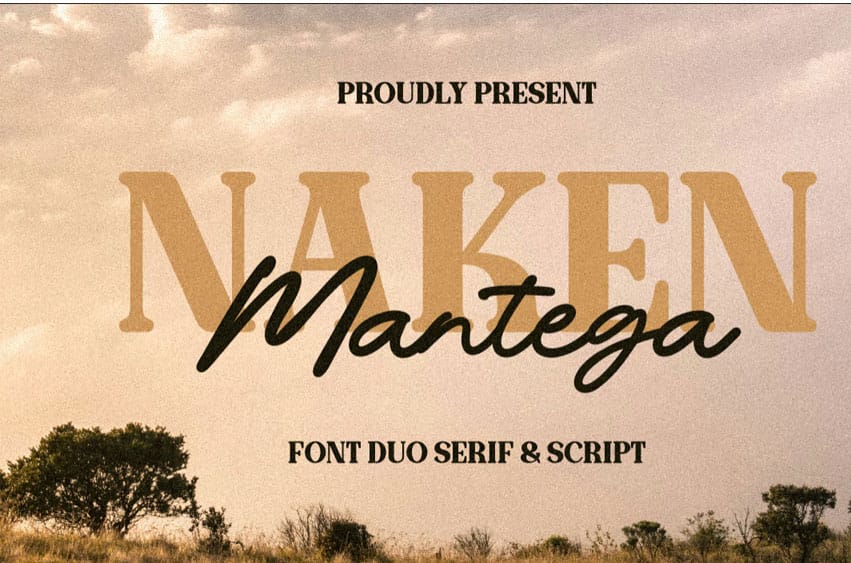
Naken Mentega Font is a stylish font duo that blends bold serif elegance with a smooth modern script. Designed to bring charm and versatility to any project, this font duo is perfect for branding, packaging, editorial designs, wedding invitations, and more.
Naken – A classic serif font with a bold, strong presence and soft rounded details, ideal for headlines and logos.
Mantega – A flowing script typeface with hand-lettered charm, perfect for adding a touch of personality and warmth.
Together, they create a perfect harmony between tradition and trend, elegance and informality.